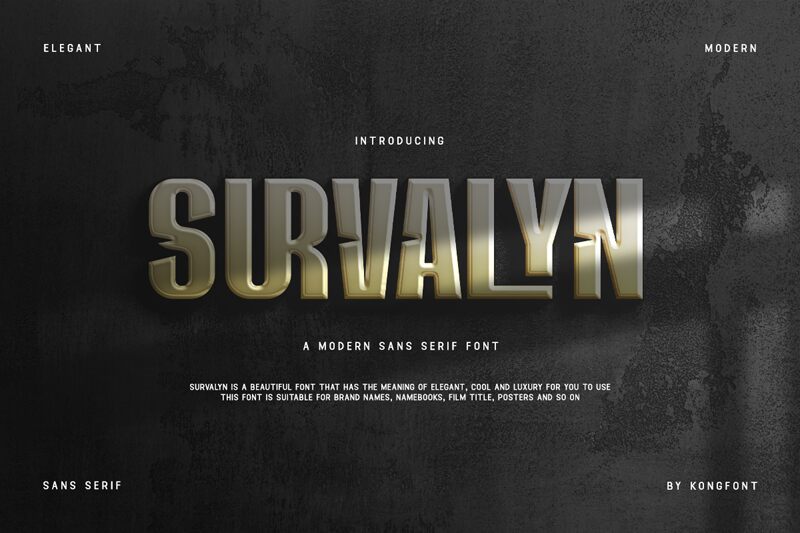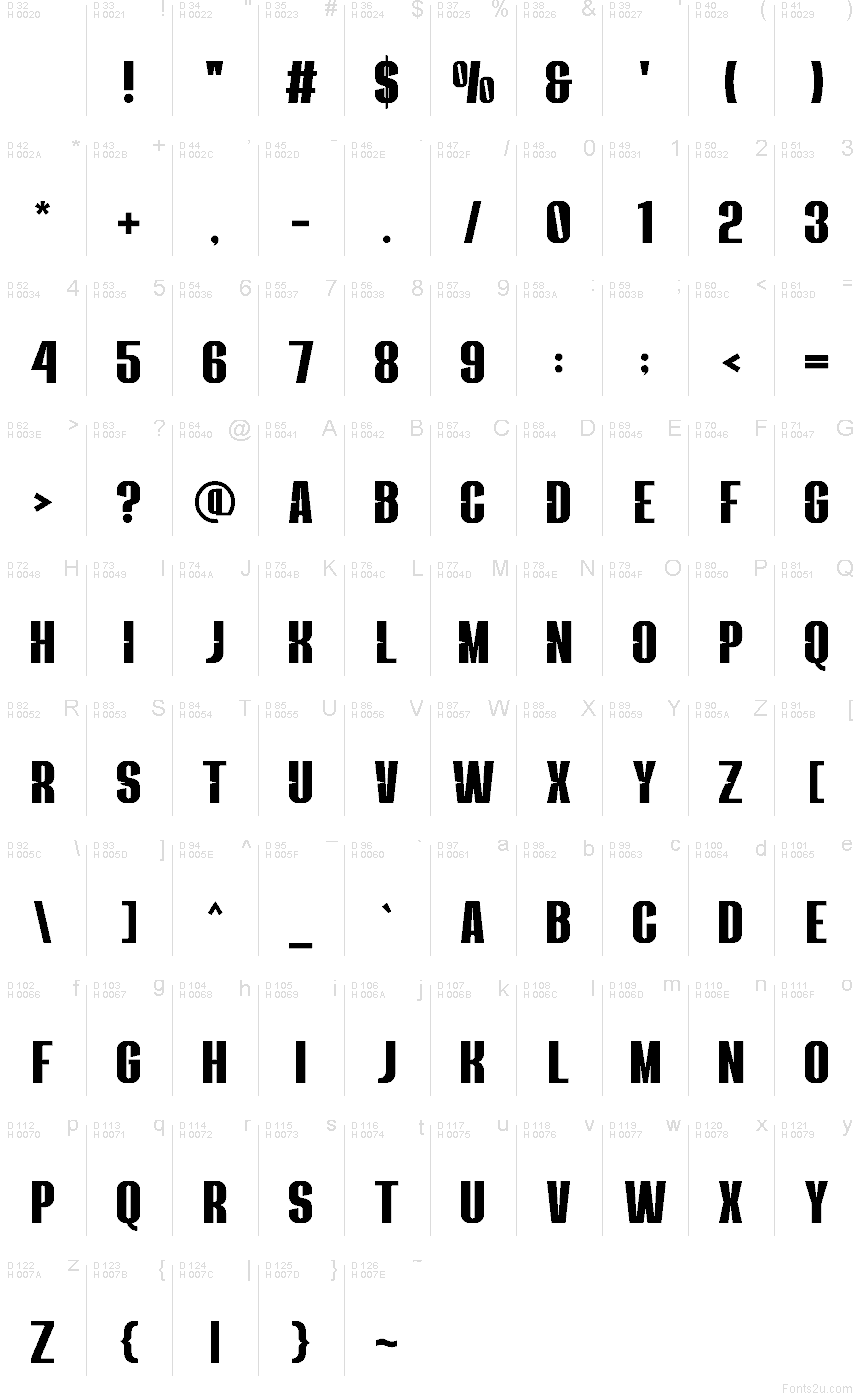
Survalyn font by Kong Font is a free bold sans serif typeface with a punchy, industrial attitude. Its condensed blocks feel inked-on and urgent, while the sliced midsections add a gritty, stenciled rhythm that keeps big words from turning into a solid slab. Tight spacing and tall proportions make it read loud even when you stack lines.
Using Survalyn, you’ll get instant impact on posters, streetwear graphics, sports branding, album covers, gaming thumbnails, packaging labels, and social ads. This free font also shines in oversized headlines where the cuts create texture without needing effects. Pair it with a clean, light grotesk for body copy so Survalyn stays the muscle.